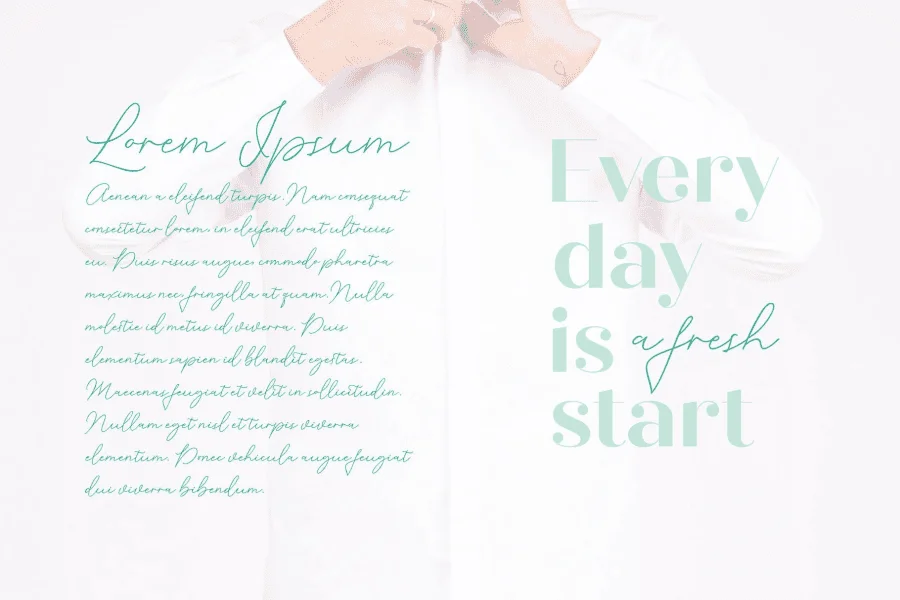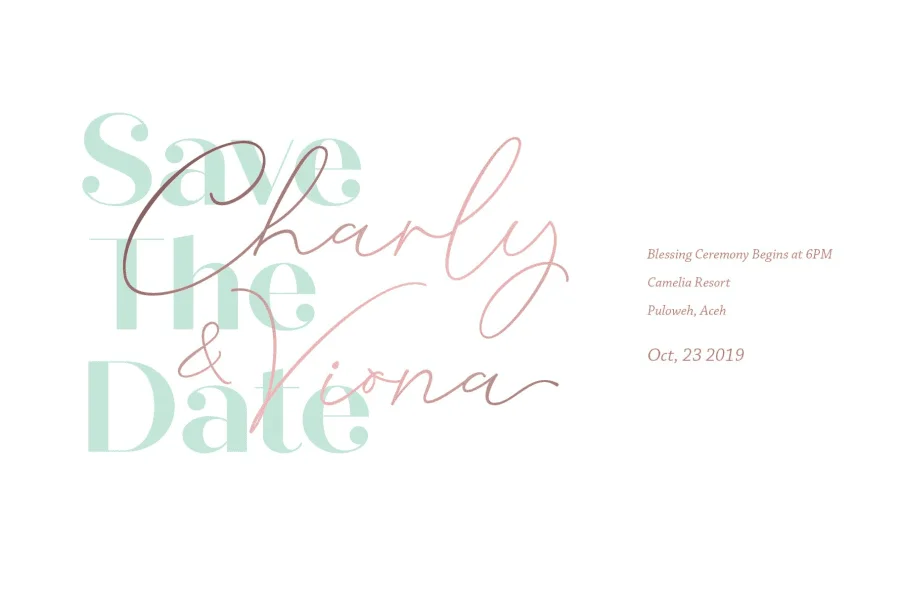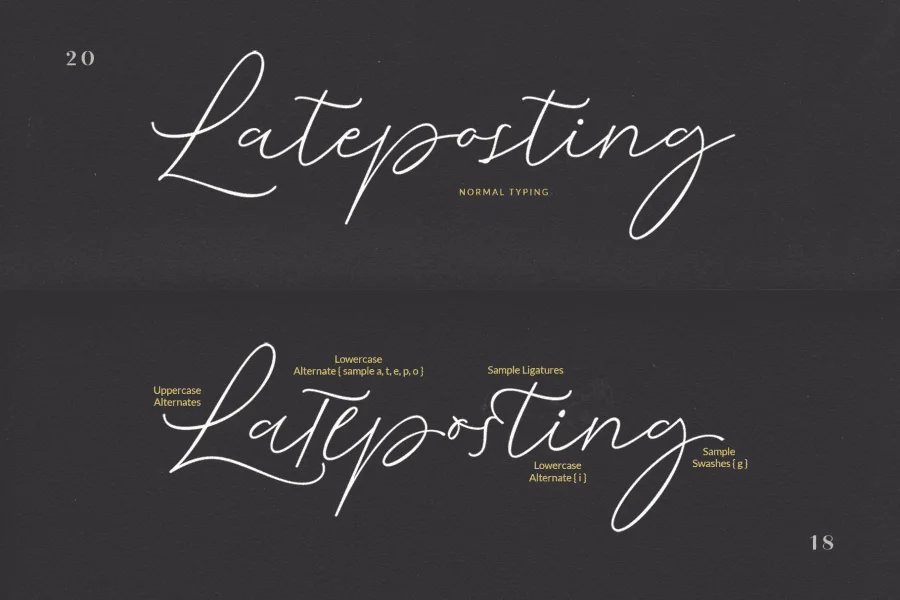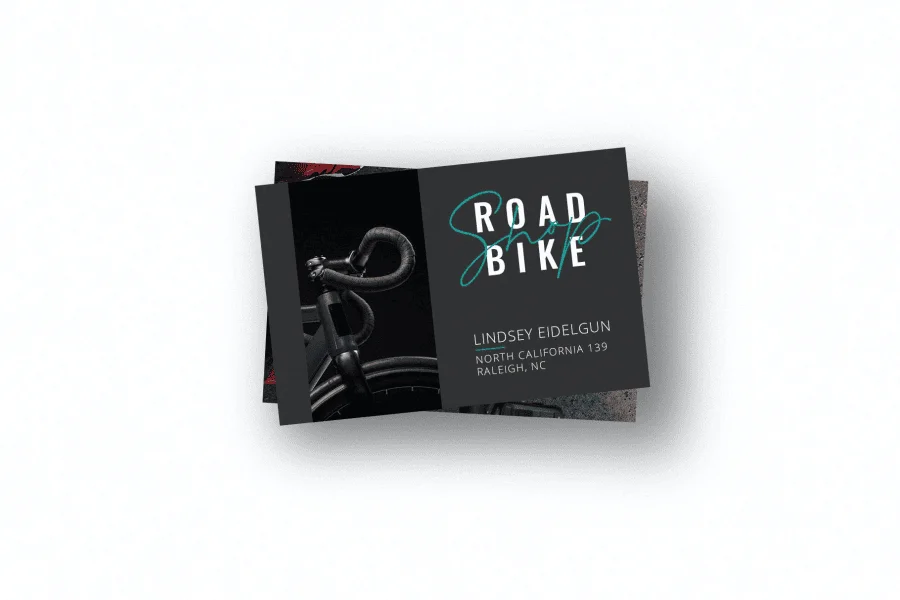
Cochocib Script Free is an elegant, hand-written script typeface that captures the fluid grace of natural penmanship. Characterized by its low-contrast construction, the typeface moves with a breezy, slanted posture and generous, sweeping loops that exhibit subtle, organic variations in weight. Its anatomy features elongated ascenders and descenders that stretch gracefully beyond the baseline, giving words a light, airy, and rhythmic texture. The connections between characters are seamless, mimicking the continuous motion of a fine-tipped ink pen.
This typeface is perfectly suited for design projects requiring a personal, sophisticated touch. It excels in wedding stationery, such as save-the-date cards and invitations, where its delicate curves can be layered over bold serif backdrops. Additionally, its stylish, handwritten quality makes it an excellent choice for editorial layouts, lifestyle branding, cosmetics packaging, and social media graphics that aim for an intimate, high-end aesthetic.